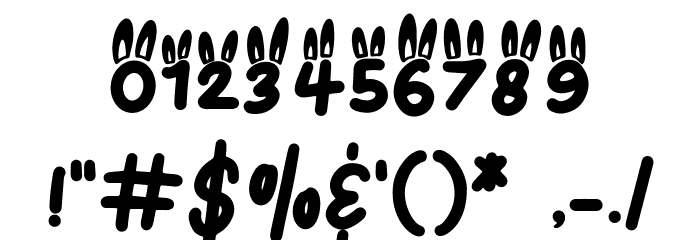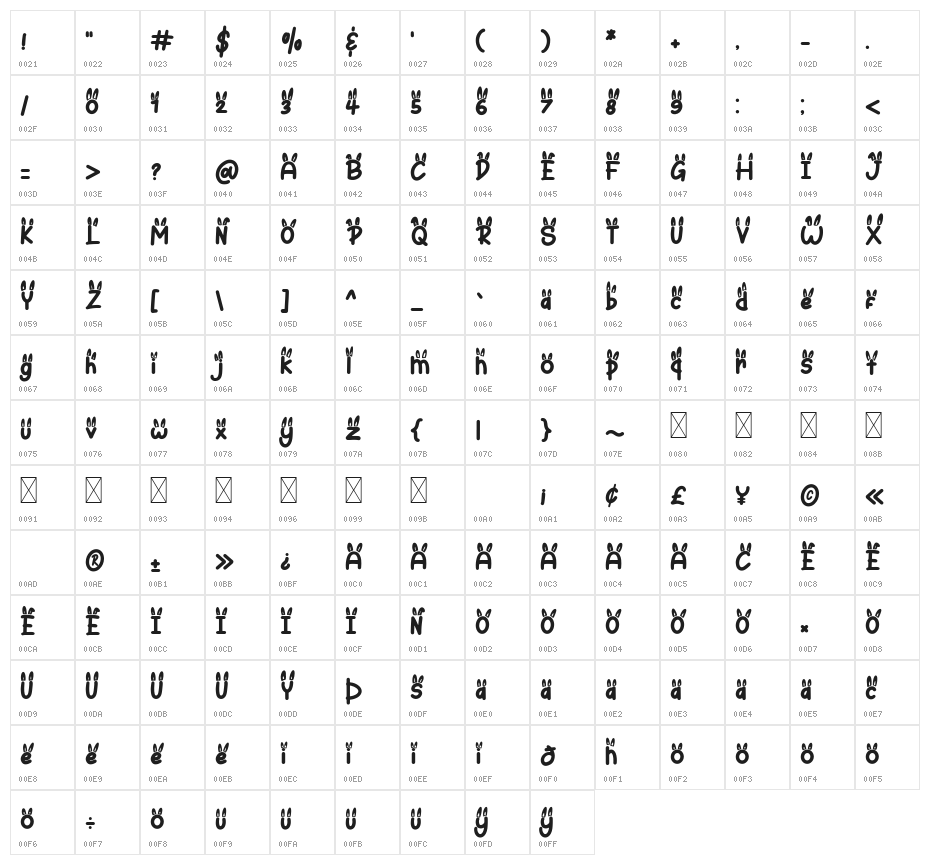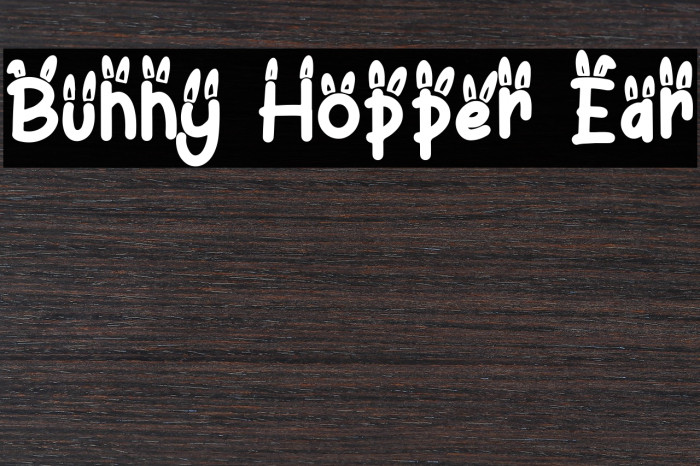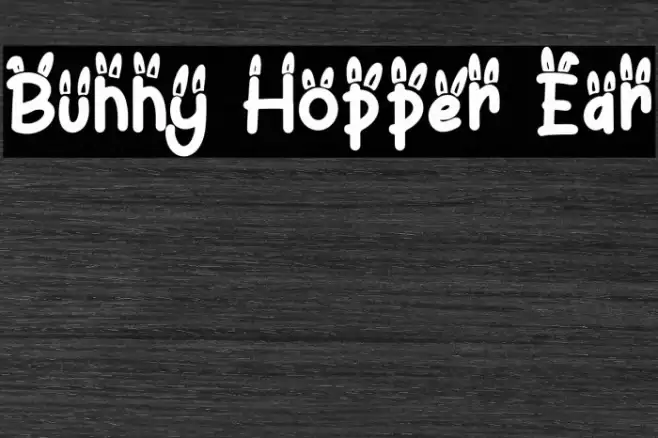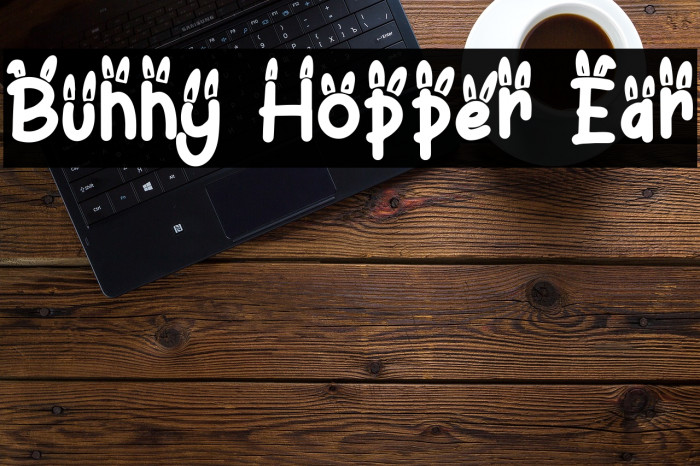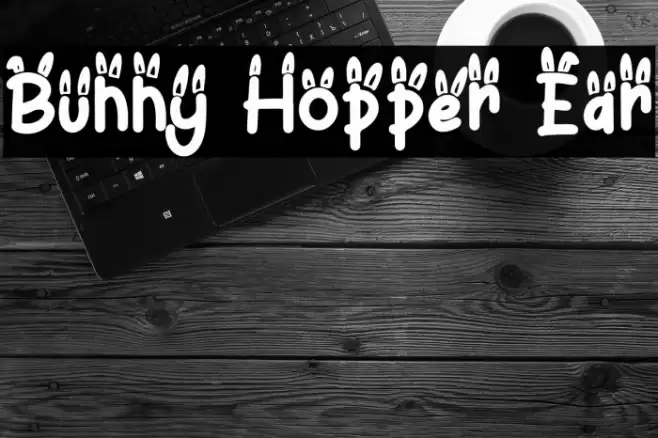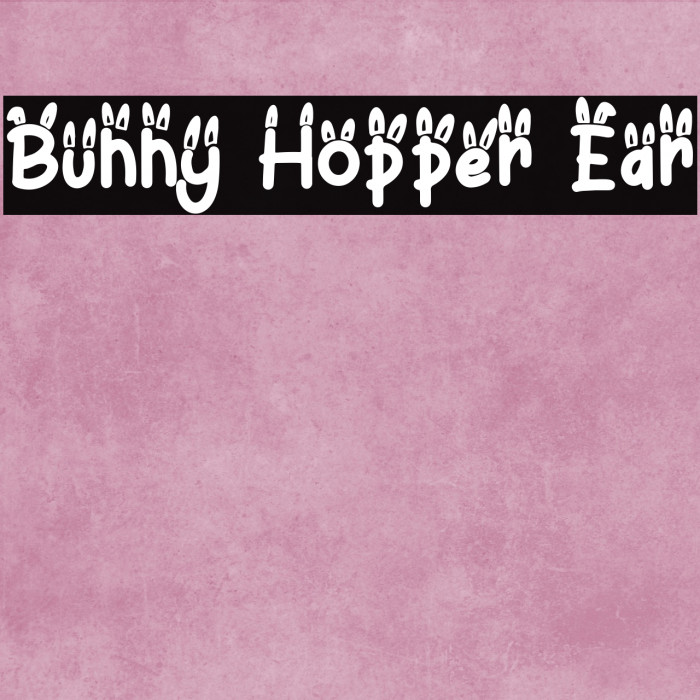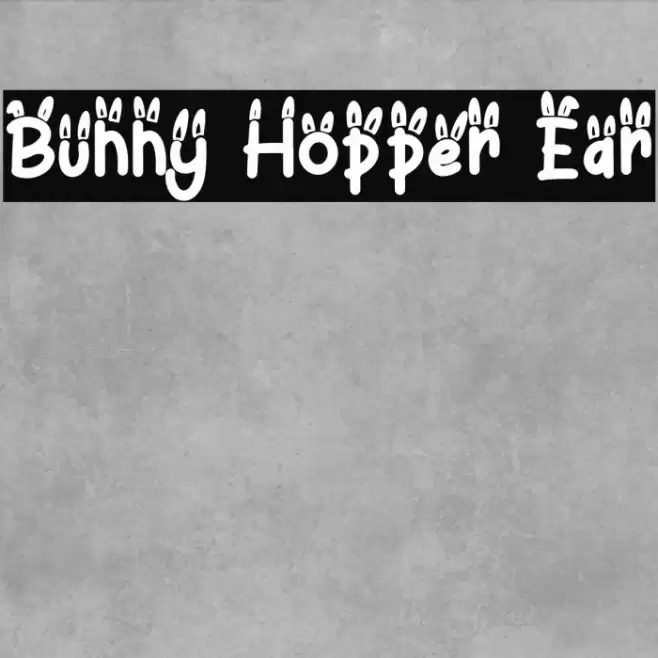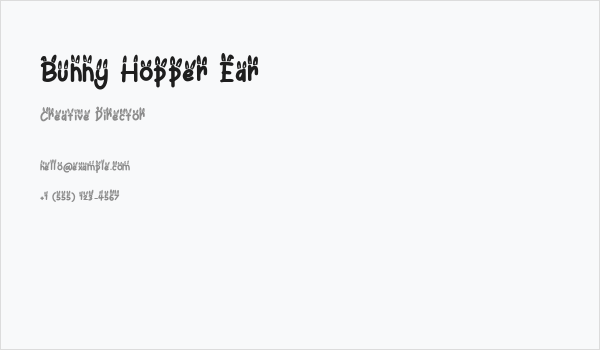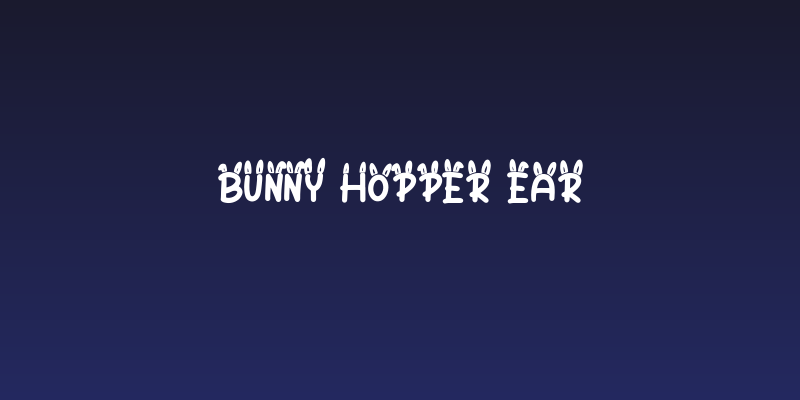
Bunny Hopper Ear Font
Bunny Hopper Ear Description
This playful and whimsical font features bold, rounded characters with distinctive bunny ears on top of each letter and number, creating a fun and lively appearance. The font is designed to capture attention with its unique and decorative style, making it ideal for projects that require a touch of humor and creativity. The characters are evenly spaced, ensuring readability while maintaining their quirky charm. The font's thick strokes and consistent weight contribute to its bold presence, making it suitable for various creative applications.
| Proposed Projects | Ideal for children's books, party invitations, playful branding, and Easter-themed designs. |